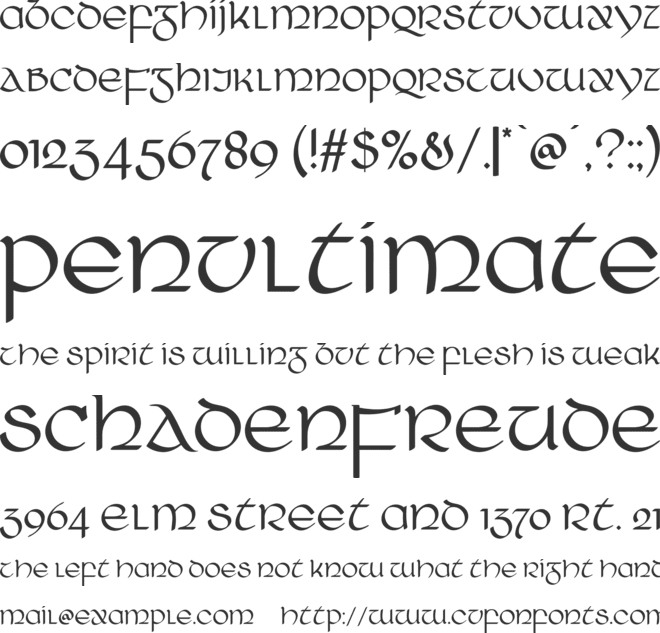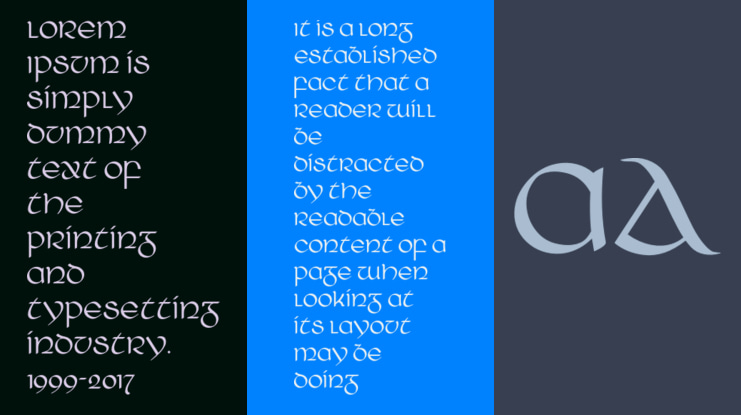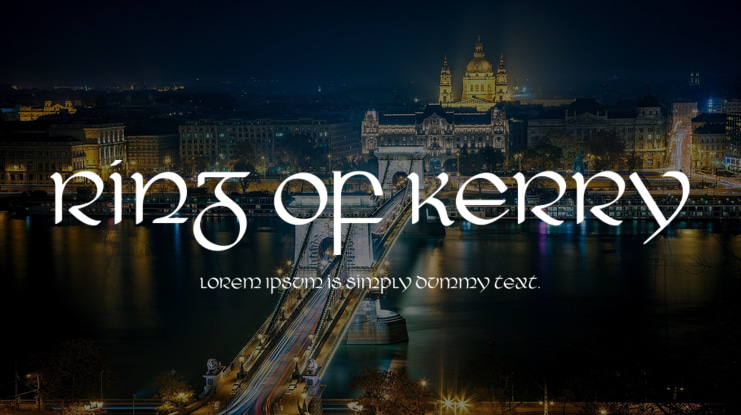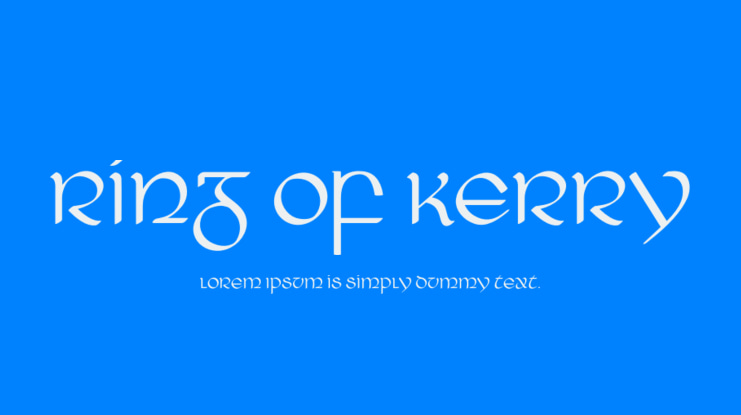
by Sharkshock
How's about yee my lads and lassies? The Ring of Kerry is sure to put a smile on your face and a song in your heart! This decorative display font should fill your needs for beautifuly crafted Irish style lettering. Medieval gaelic meets uncial script in a fusion of mostly circle based characters
designed to repeat themselves and take up horizontal space. While it's majuscule in nature there are several "alternates" found in the lowercase letters to give a bit of variety. Basic latin, punctuation, European accents, kerning, and a few Celtic knots are available. These can be accessed by using
your program's glyphs panel. If your program doesn't support OTF features try some of the trademark symbols such as ® and ™. Use it for greeting cards, posters, or a pub logo.